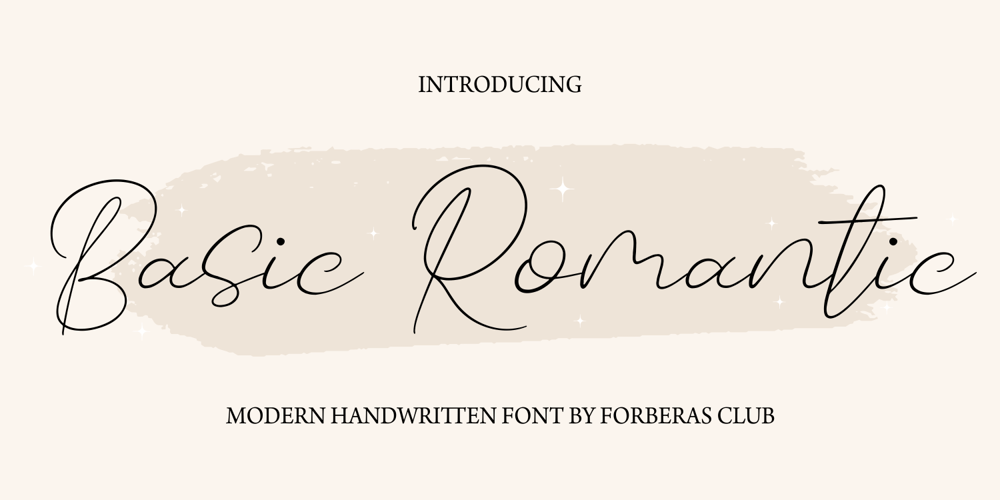
Basic Romantic Font Family was designed by ANGGI HERMAWAN and published by Forberas Club. Basic Romantic contains 1 styles and family package options. Introducing Basic Romantic, This font is suitable for your upcoming wedding project for decorative or invitation. it will work perfectly with some farmhouse, rustic, or even scandinavian theme. Can wait your response and review by purchasing this product.